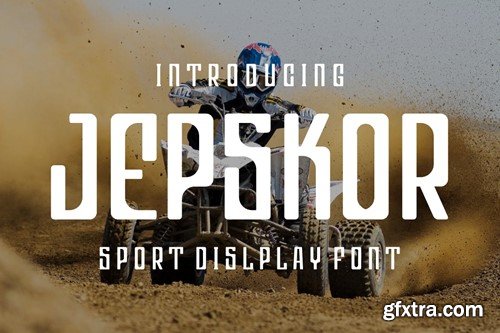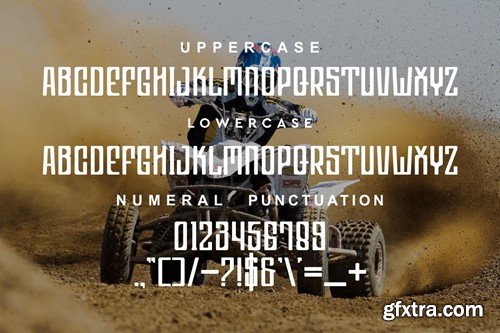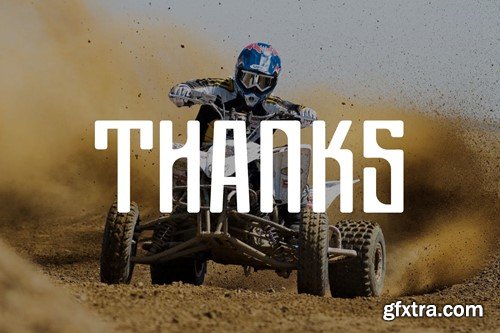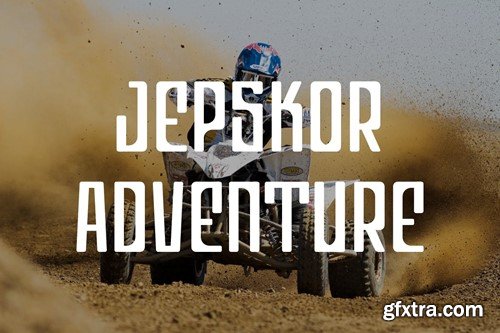
Jepskor - Sport Font
Jepskor - Sport Font Font is unique . Ready to use for your design like labeling, movie sceen, poster, movie title, gigs, album covers, logos, and much more. Included